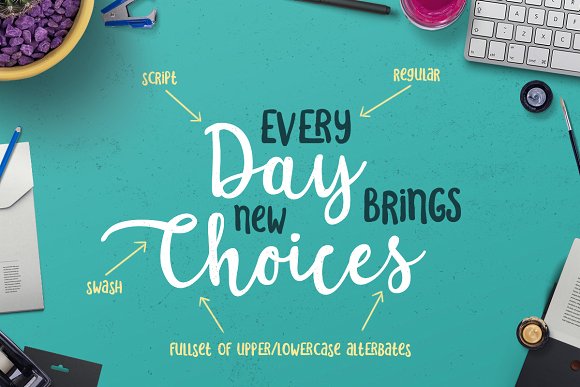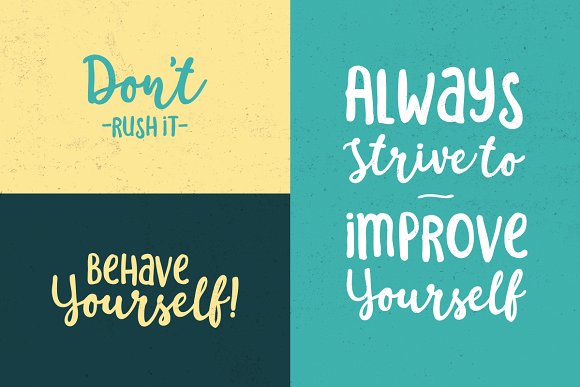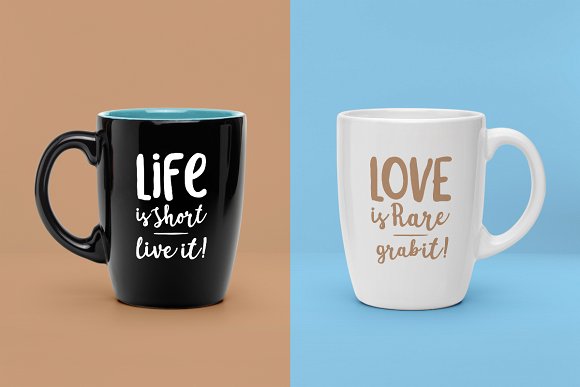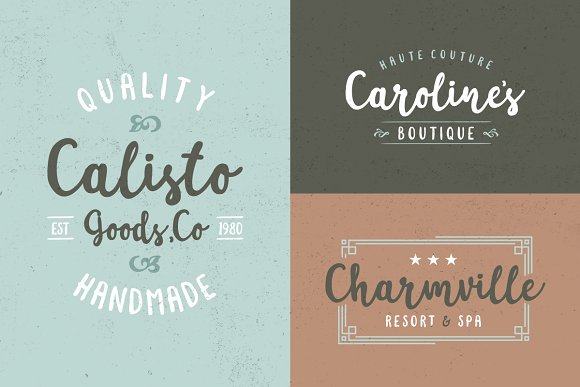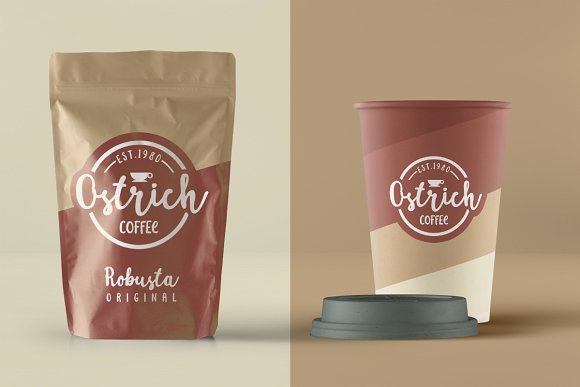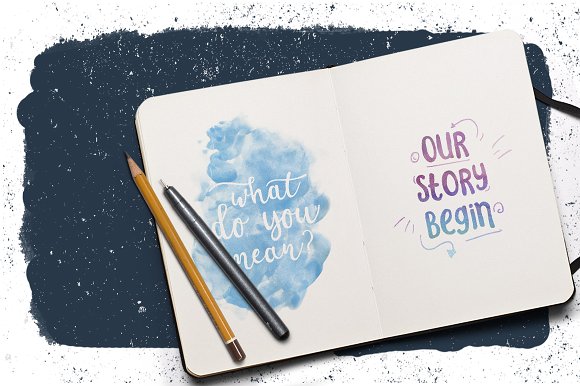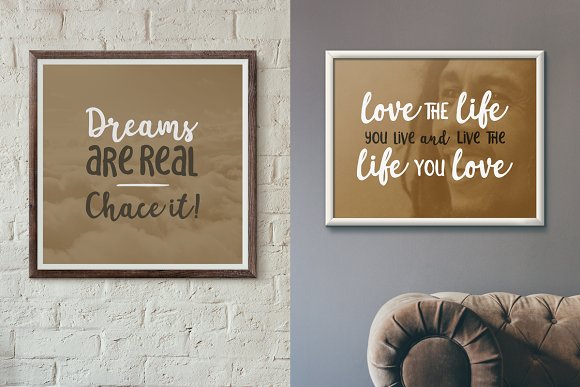
HomeScript FontsSakra Font Script Fonts Sakra Font FacebookXPinterestWhatsApp Sakra Font Poster 2 Sakra Font Poster 3 Sakra Font Poster 4 Sakra Font Poster 5 Sakra Font Poster 6 Sakra Font Poster 7 Sakra Font Poster 8 About Sakra Font The Sakra Font duo consists out of a regular and a script font that are a perfect match to combine in your project. DOWNLOAD ON CREATIVE FABRICAThis font is sold and delivered by Creative Fabrica. Font Canyon may earn a commission if you buy through this link. People also explored Andarista Font Wedding Font Leland Font Bloomies Notes Font Kinsey Font Lover Font Spring Time Font Milesons Font Galileo Regular Font 495 0 TagsSakra Font Previous articleVanillate FontNext articleRedoura Font LEAVE A REPLY Cancel reply Comment: Please enter your comment! Name:* Please enter your name here Email:* You have entered an incorrect email address! Please enter your email address here Website: Save my name, email, and website in this browser for the next time I comment. Personal Use Free Husky Stash Personal Use Free Read more about this font Ernesthuge Personal Use Free Read more about this font Calling Personal Use Free Read more about this font Micahel Personal Use Free Read more about this font BLOG Fonts That Capture the Spirit of New York City New York City is more than just a place—it’s an experience, a rhythm, a visual language... How to Install and Use Fonts on Windows, macOS, and Web Projects Free Fonts Risk: Why Free Fonts Can Be Dangerous for Designers The 10 Best Handwriting Fonts to Add Personality to Your Designs